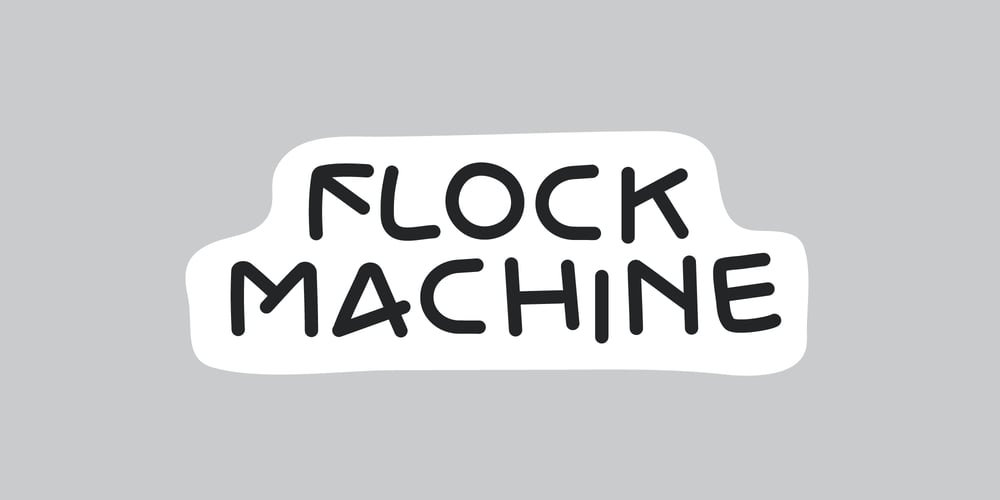
Flock Machine
Flock Machine font
Flock Machine Font Family was designed by Andrew Seah and published by Baqoos. Flock Machine contains 4 styles and family package options. Flock Machine is an inerrant peppy handwritten typeface apt for headline, editorial, branding, packaging, printed materials and typographic applications. 200+ glyphs including punctuation and numerical.